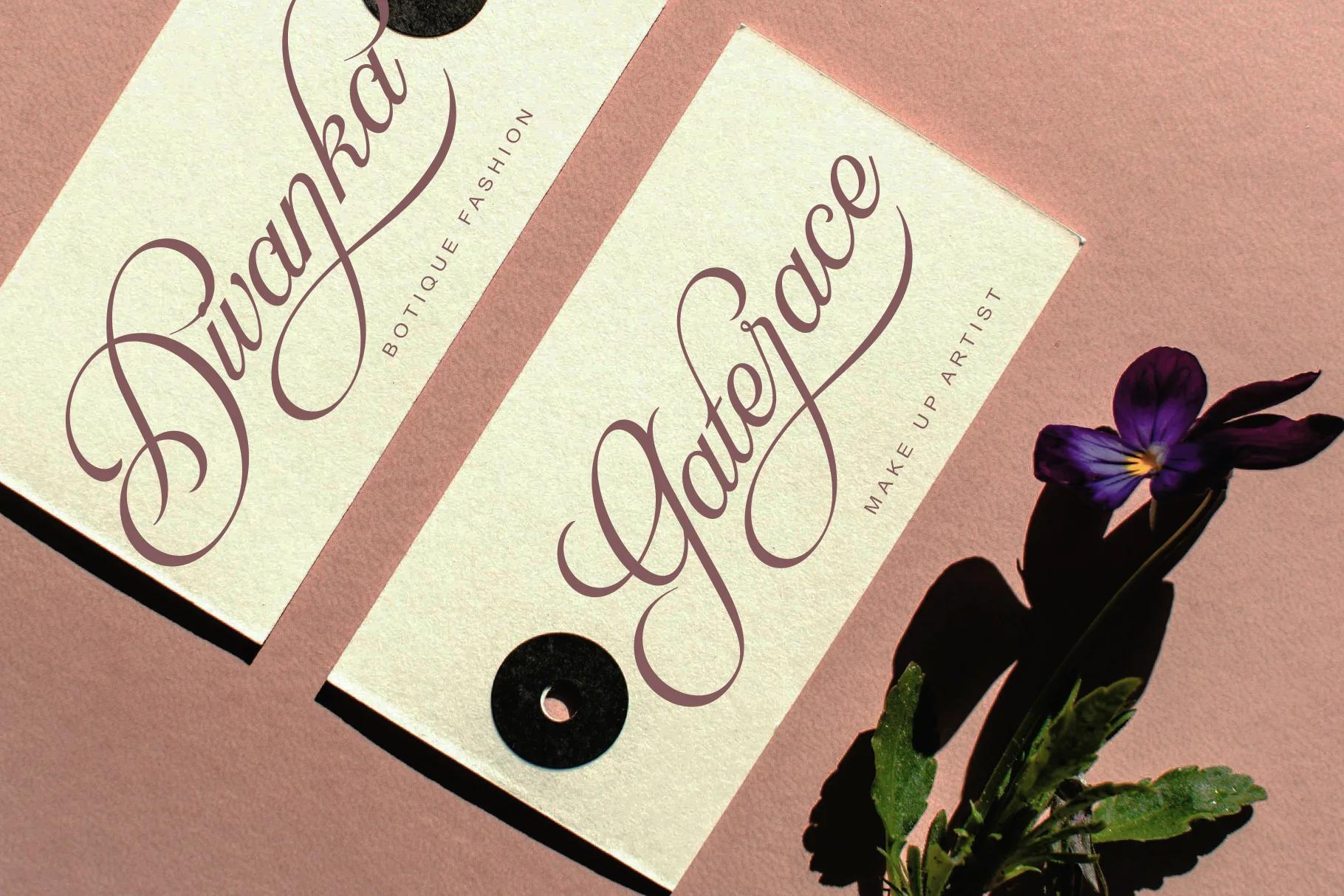
Buttain
Buttain is a premium beautiful script font that exudes luxury, elegance, and a deeply personal touch. Designed in a modern, artistic calligraphy style, this font lends an exclusive and romantic feel to any design.
- Uppercase and Lowercase – Complete range of letter cases for diverse uses.
- Numerals – Includes numbers for various creative needs.
- Functional – Designed for efficiency and aesthetic appeal.
- Multilingual Support – Includes characters for multiple languages.
- Stylistic Variations – Offers creative style options.